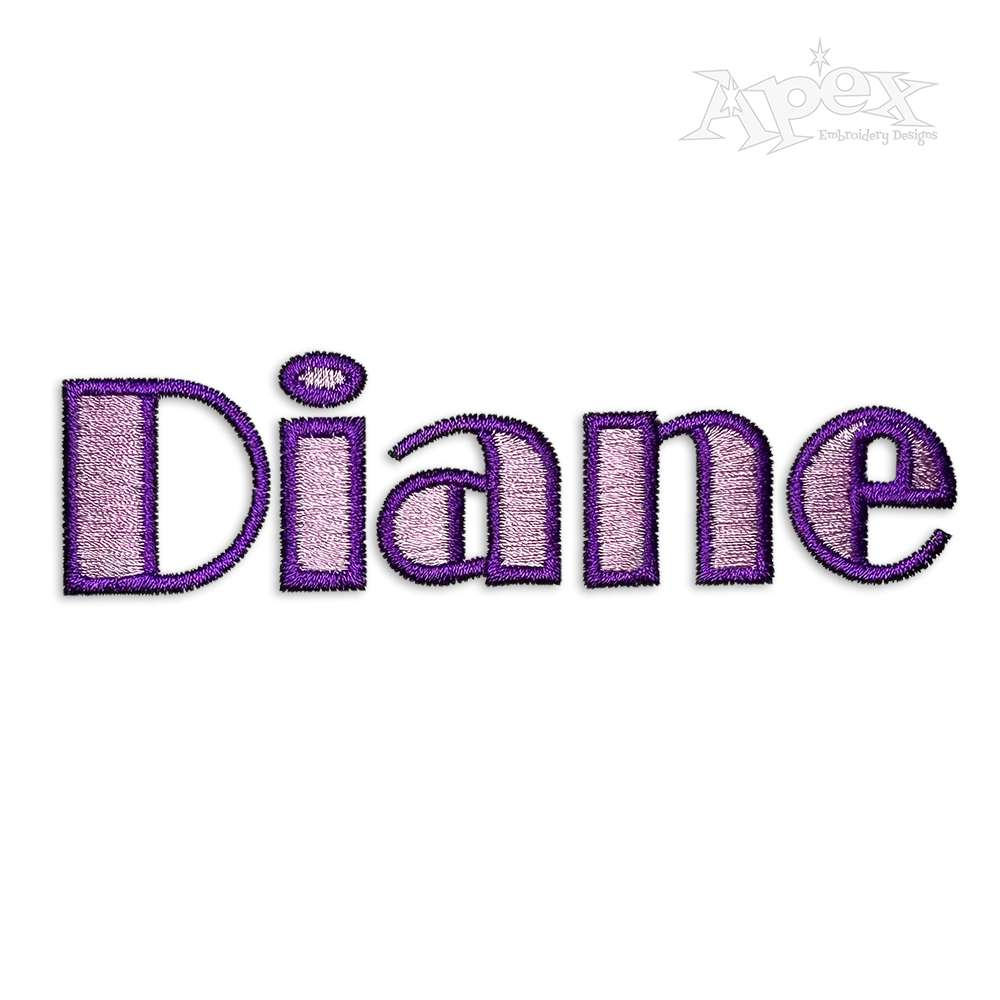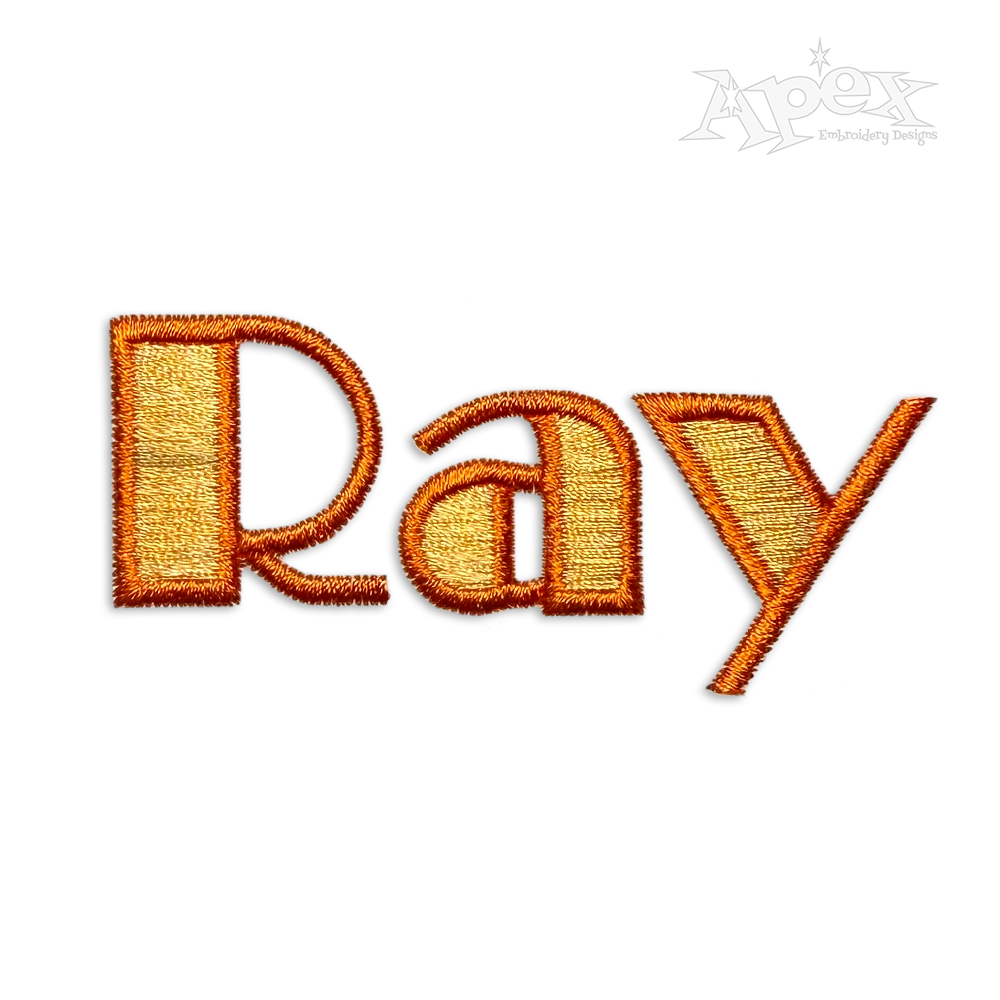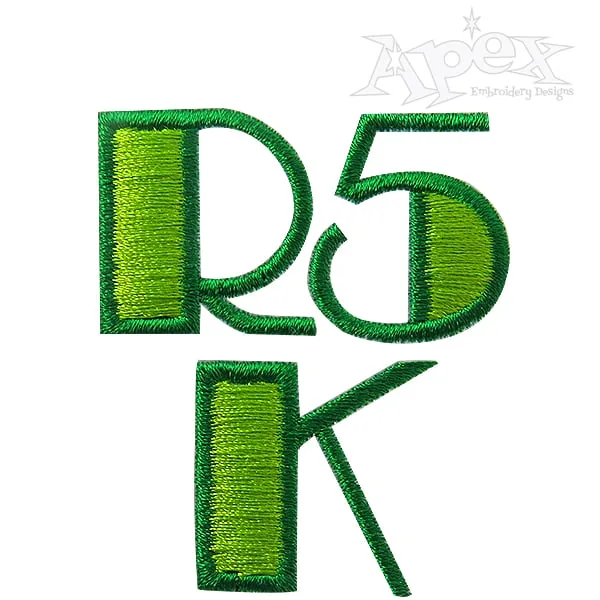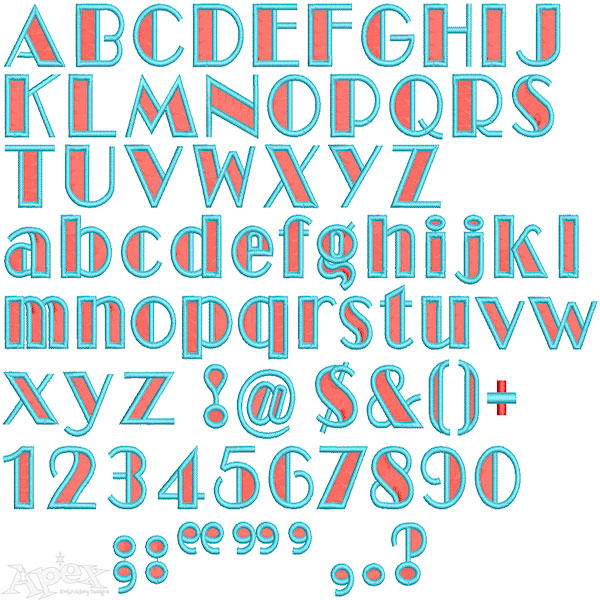
Broadway Embroidery Fonts
Golden age playbill typography inspired this design. Footlights hum, velvet curtains part, bold marquee letters command attention. Digitized satin stitch alphabet captures vintage theatrical soul. Every letterform pairs extra-wide body with crisp dual-tone border. Result delivers unmistakable stagecraft elegance to heirloom embroidery projects, bespoke textiles, and personalized gifting.
Broadway Embroidery Fonts Craft & Letterform Details
Vintage theater marquees demanded bold visibility across crowded avenues. We built this font with broad architectural geometry, dramatic horizontal expansion, and balanced letter weight. Solid fill core runs first, establishing dense foundational thread coverage. Contrasting satin border stitches second, framing each character with razor-sharp definition. Precise stitch sequencing prevents fabric puckering, maintains registration between dual-color layers, and preserves smooth outer contours across curves, serifs, and angled stems.